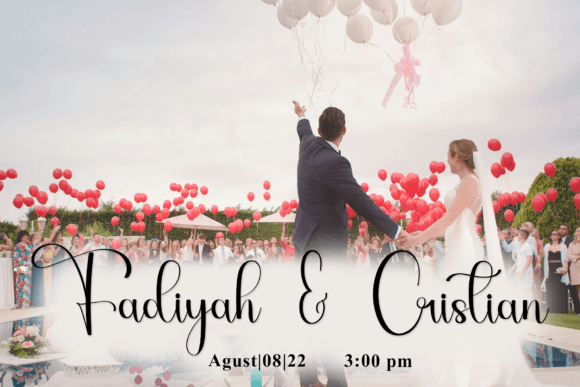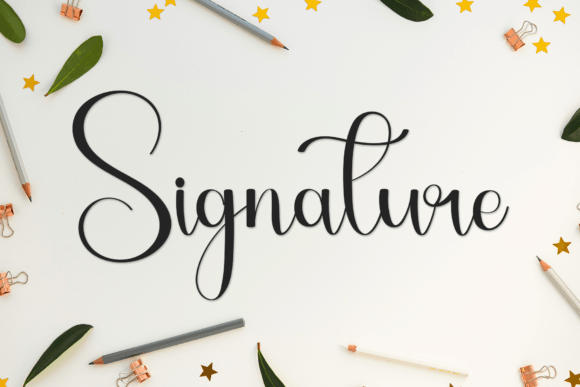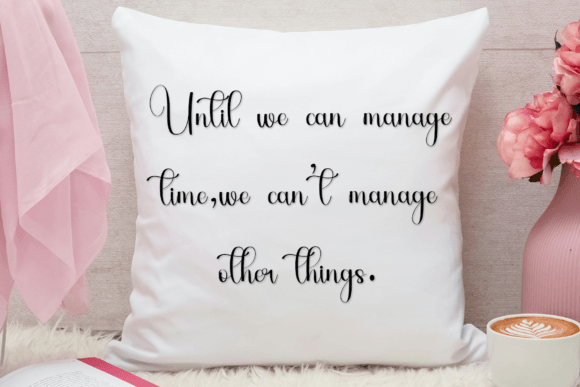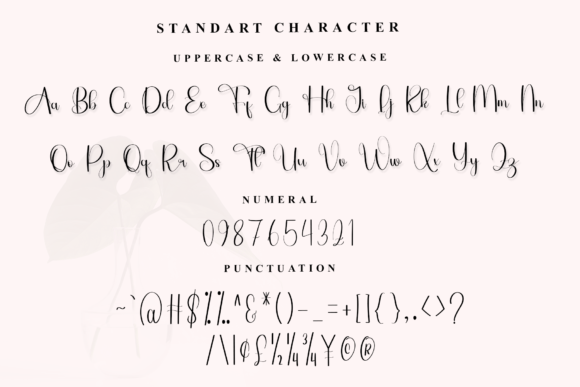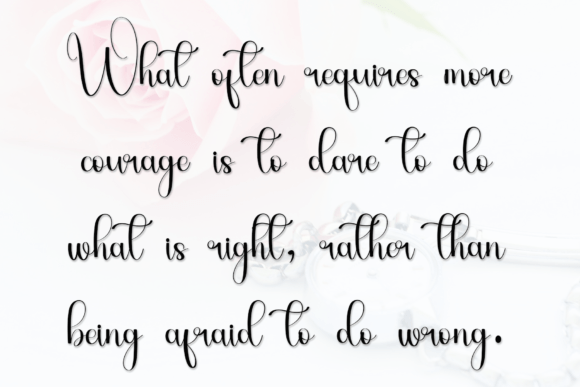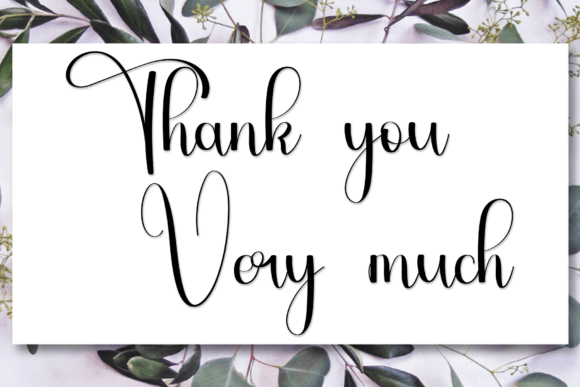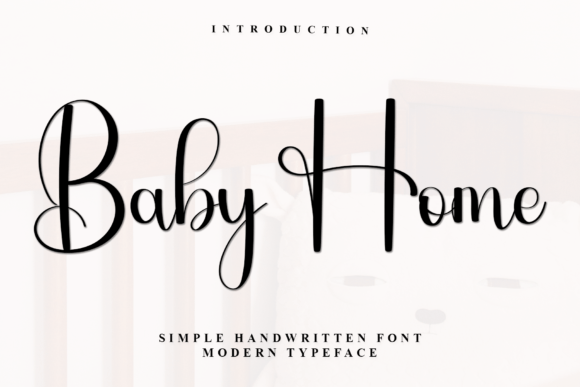
Baby Home Font: The Perfect Addition to Your Design Arsenal
Are you a designer or crafter looking for a font that can add a touch of elegance and sophistication to your creative projects? Look no further than the Baby Home Font. This beautiful, handwritten font is perfect for a wide range of designs, from wedding invitations and baby shower cards to branding and packaging.
A Delicate and Elegant Font
Baby Home Font is a delicate, elegant, and flowing handwritten font that is sure to capture the attention of your audience. Its beautiful and well-balanced characters make it a versatile font that can be used in a variety of design contexts. Whether you’re creating a romantic wedding invitation or a playful baby shower card, Baby Home Font is the perfect choice.
Matching a Wide Pool of Designs
One of the standout features of Baby Home Font is its ability to match a wide pool of designs. Its elegant and flowing script makes it perfect for designs that require a touch of sophistication and refinement. At the same time, its playful and whimsical feel makes it suitable for more playful and creative designs.
Baby Home Font is PUA coded, which means that you can access all the amazing glyphs and ligatures easily. PUA (Private Use Area) coding allows designers to access a wide range of special characters and glyphs that can be used to add an extra layer of creativity to their designs. With Baby Home Font, you can easily access these glyphs and ligatures to create unique and eye-catching designs.
Adding a Touch of Magic to Your Designs
When you add Baby Home Font to your design arsenal, you’ll notice how it brings your creative ideas to life. Its elegant and flowing script has a way of adding a touch of magic to your designs, making them stand out from the crowd. Whether you’re designing a logo, a brochure, or a social media graphic, Baby Home Font is sure to make your designs shine.
Baby Home Font is perfect for designers and crafters who are looking for a font that can add a touch of elegance and sophistication to their creative projects. Whether you’re a professional designer or a DIY crafter, Baby Home Font is a great addition to your design arsenal. Its versatility and ease of use make it perfect for a wide range of design contexts, from digital designs to print projects.
Tips for Using Baby Home Font
- Use it for headings and titles: Baby Home Font is perfect for headings and titles, where its elegant and flowing script can really shine.
- Pair it with other fonts: Baby Home Font pairs well with a wide range of fonts, from sans-serif fonts to serif fonts. Experiment with different pairings to find the one that works best for your design.
- Use it for branding and packaging: Baby Home Font is perfect for branding and packaging designs, where its elegant and sophisticated feel can help to create a lasting impression.
In conclusion, Baby Home Font is a beautiful and versatile font that is perfect for designers and crafters who are looking for a font that can add a touch of elegance and sophistication to their creative projects. Its delicate and flowing script makes it perfect for a wide range of designs, from wedding invitations and baby shower cards to branding and packaging. With its PUA coding and ease of use, Baby Home Font is a great addition to any design arsenal.